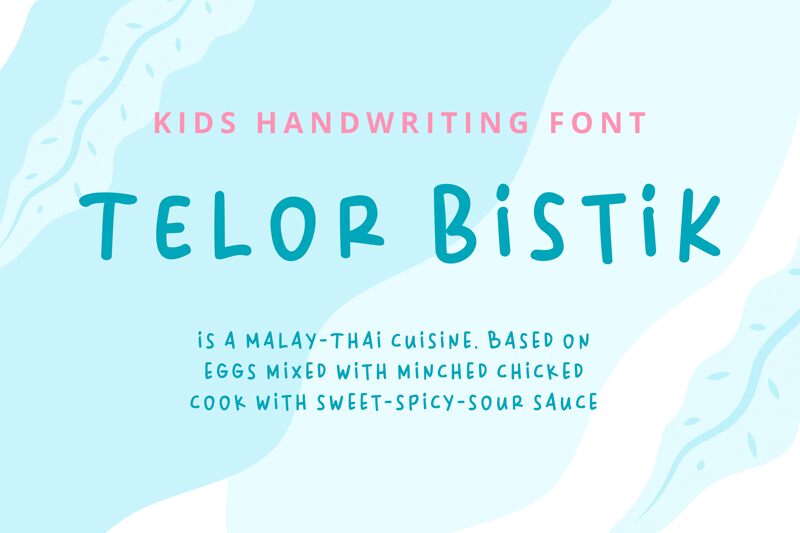
Telor Bistik, crafted by the talented Tigadestd, is a captivating handwritten font that strikes the perfect balance between elegance and modernity. With its semi-bold weight, this versatile typeface adds a touch of sophistication to any project. Ideal for branding materials, including logos and packaging designs, Telor Bistik breathes life into invitations and greeting cards. Its graceful strokes make it an excellent choice for book covers and editorial designs, effortlessly capturing readers' attention. Elevate your website headers and social media posts with Telor Bistik's distinctive charm. Unleash your creativity and let this remarkable font bring your creations to life.
Telor Bistik